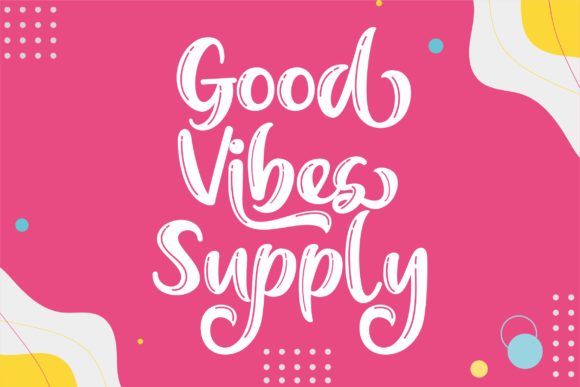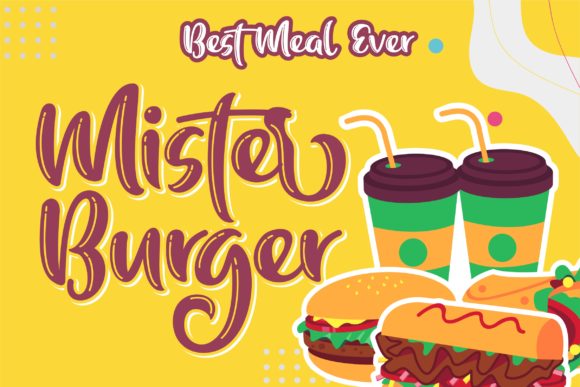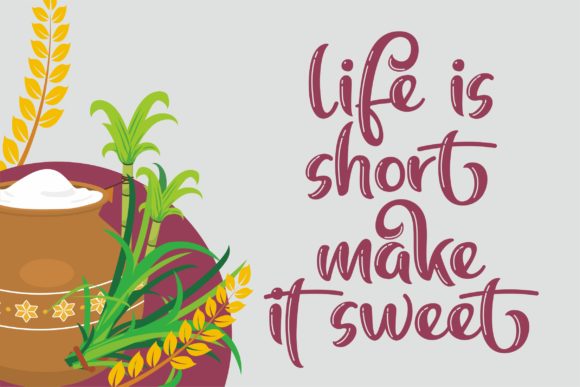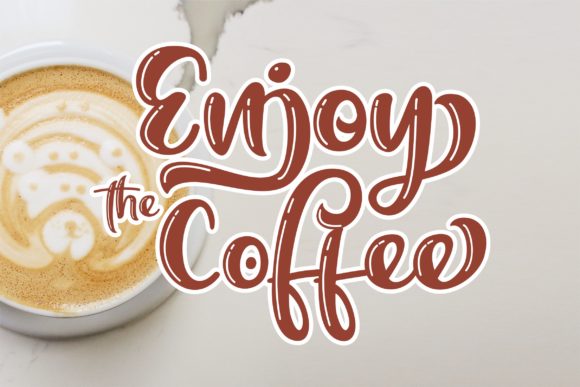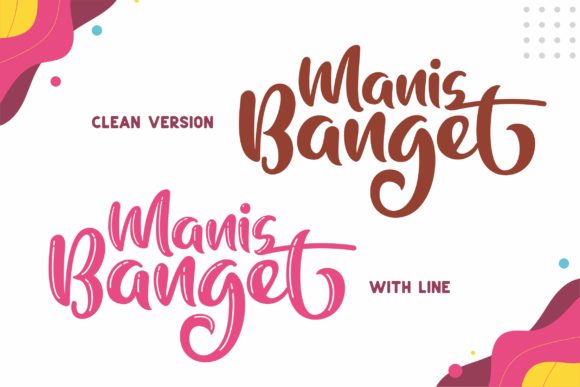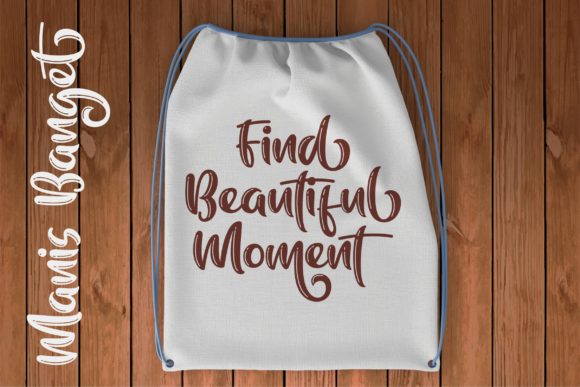
Introduction to Manis Banget Font
Manis Banget is a cute and sweet display font.
It embodies playfulness and authenticity and is the perfect choice for any children activity or school project Add this chunky lettered font to your designs and notice how it makes them come alive.
Key Features of Manis Banget Font
Why Choose Manis Banget Font?
Manis Banget Font offers exceptional quality and versatility, making it a valuable addition to your design toolkit. Whether you’re creating for personal projects or commercial use, Manis Banget Font delivers professional results.